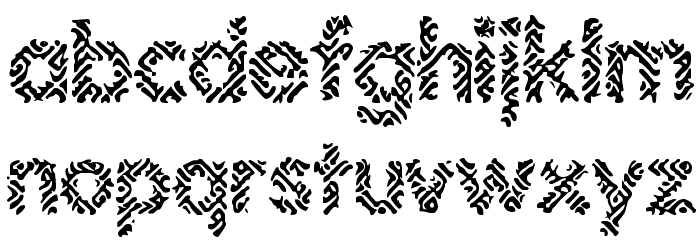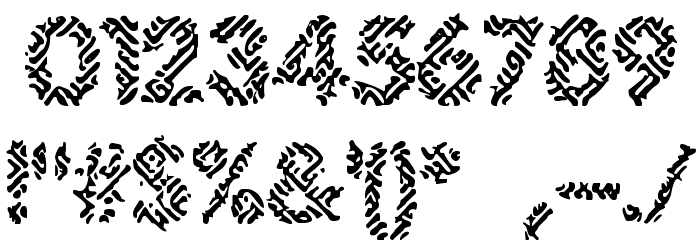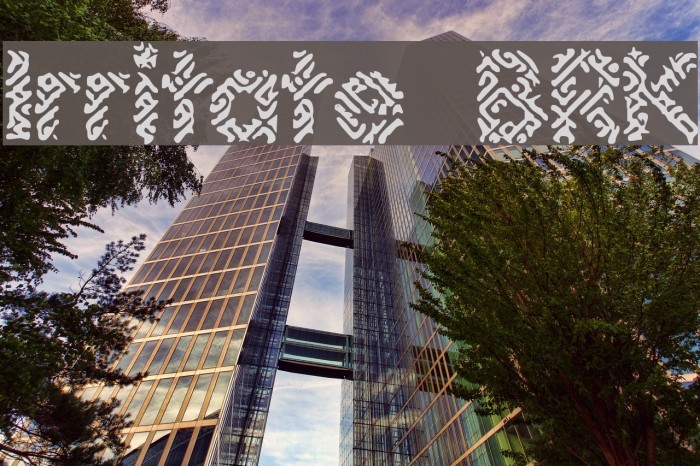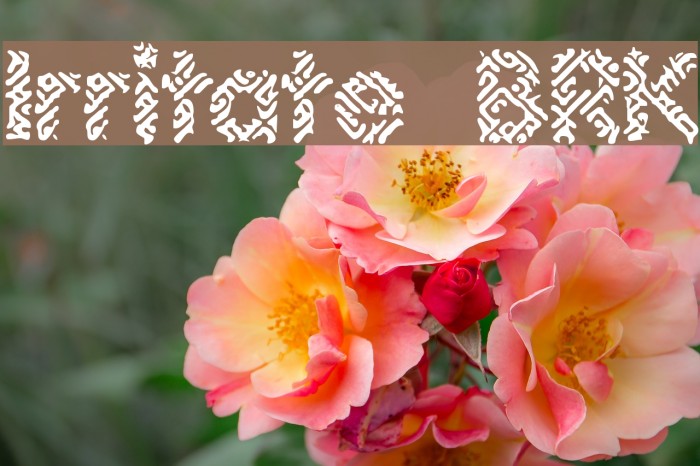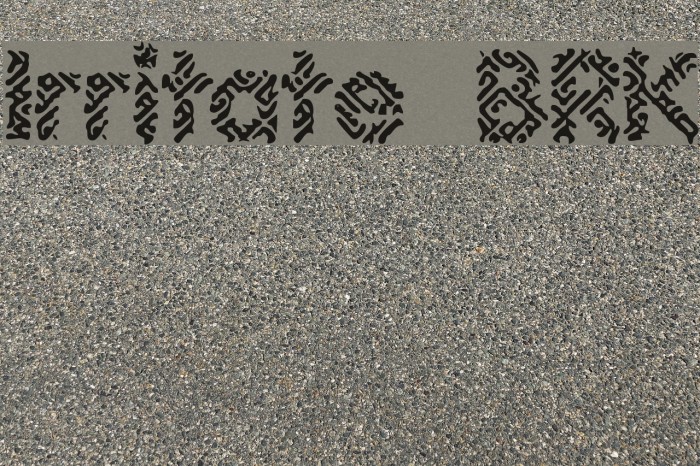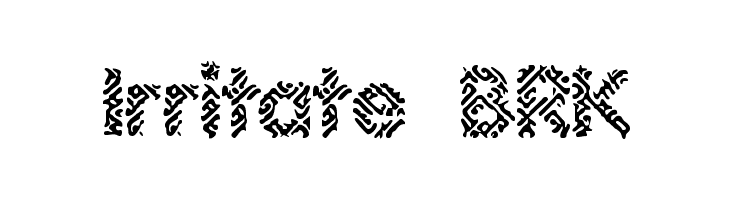
Irritate BRK Font
This font features a highly decorative and intricate design, with each character composed of a series of interlocking, abstract shapes. The bold, geometric patterns create a sense of movement and complexity, making it a standout choice for eye-catching designs. The uppercase and lowercase letters maintain a consistent style, while the numbers and special characters are equally detailed, ensuring a cohesive look across all text. The font's unique style is reminiscent of modern art, with a playful yet sophisticated edge.
A bold, decorative font with intricate, abstract patterns.
- Proposed Projects: Ideal for artistic posters, album covers, or branding that requires a distinctive and memorable typeface.
- Use Case: Logos, Posters, Headlines